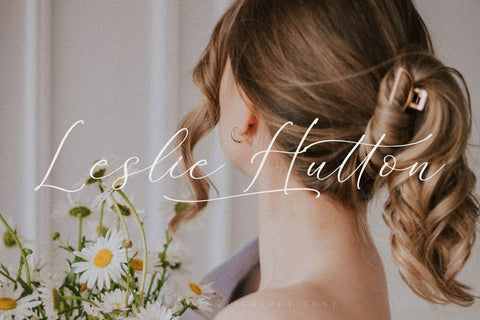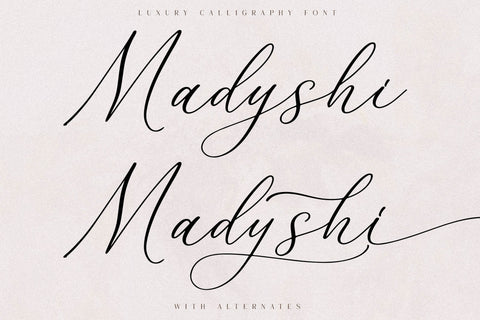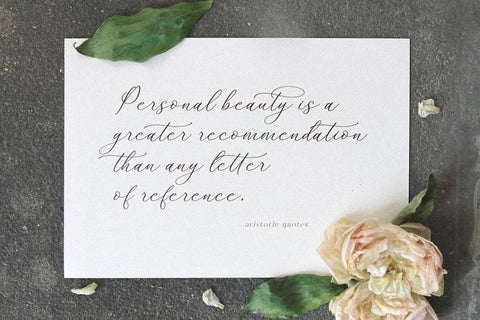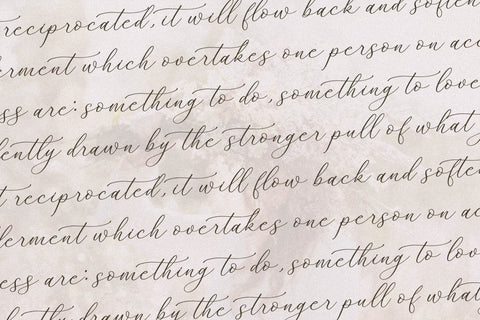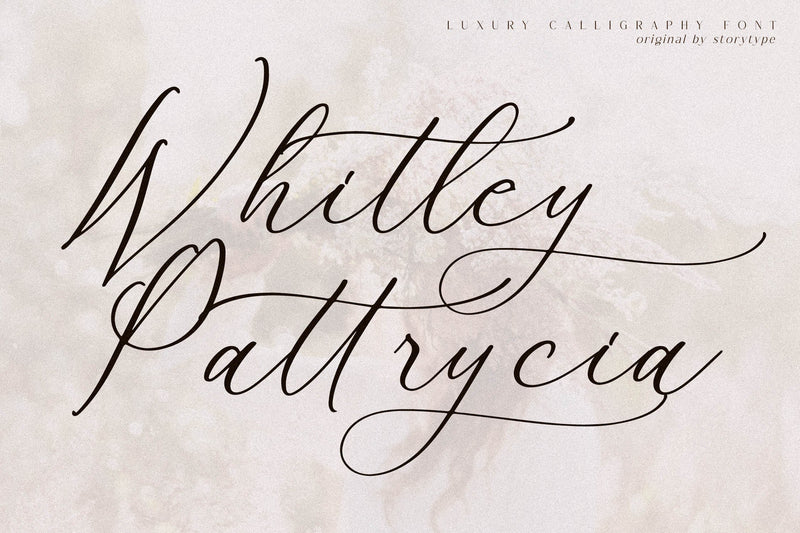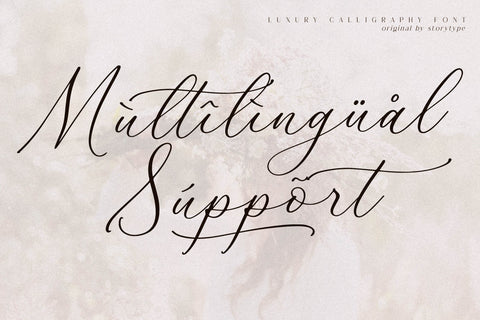
Whitley Pattrycia - Luxury Calligraphy Font
Proudly present Whitley Pattrycia - Luxury Calligraphy Font , created by Storytype,
A luxury script that has own unique style & modern look.